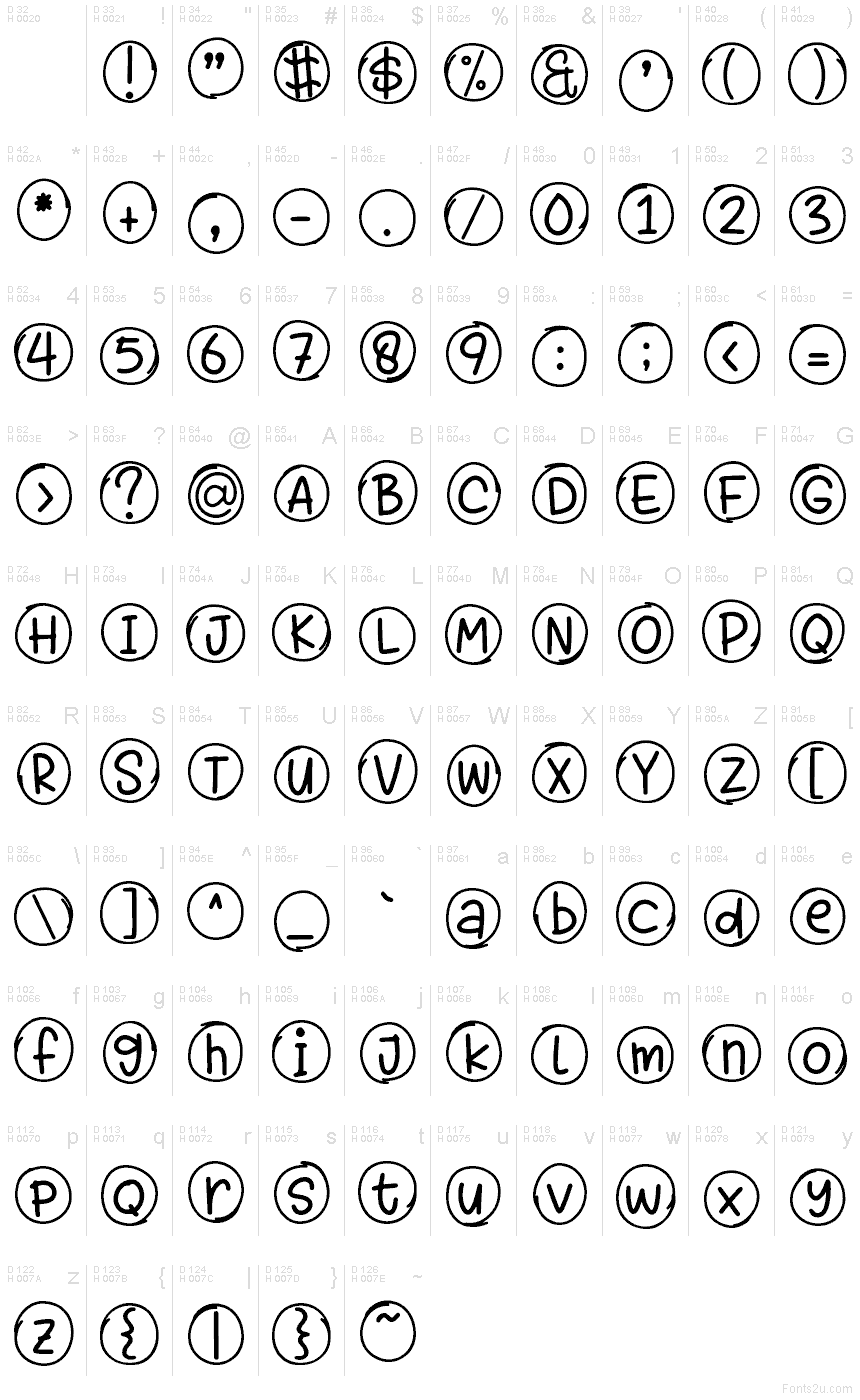
Bubble Dance Monogram font by DM Letter Studio - Dimas Prasetyo is a free decorative display typeface. Each letter sits snugly inside a bubbly circle, with a hand-drawn wobble and inky outlines that feel playful and crafty. Part of the Bubble Dance family, it’s all about instant monogram energy-drop a single initial or a short word and it looks finished, like a sticker straight off the sheet.
Using Bubble Dance Monogram, your designs pop on kids’ birthday invites, party banners, classroom labels, cupcake toppers, Etsy shop packaging, and cheery social posts. The round frames create tidy spacing and a steady rhythm, so elements line up easily. This free font pairs nicely with a clean geometric sans; set the monograms large, and keep supporting text smaller for a crisp, friendly hierarchy.